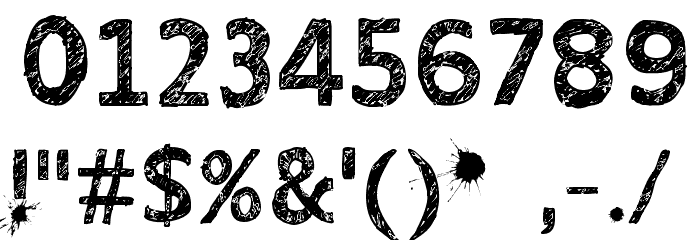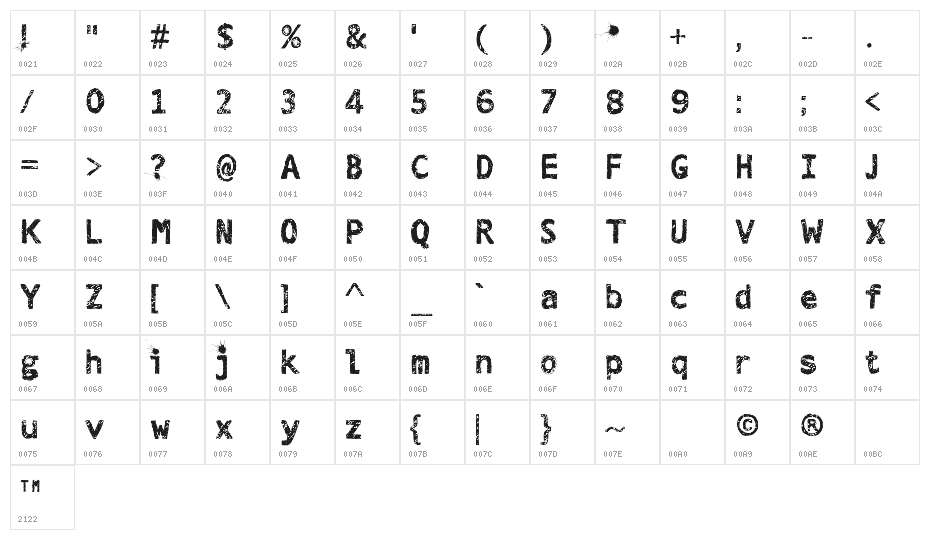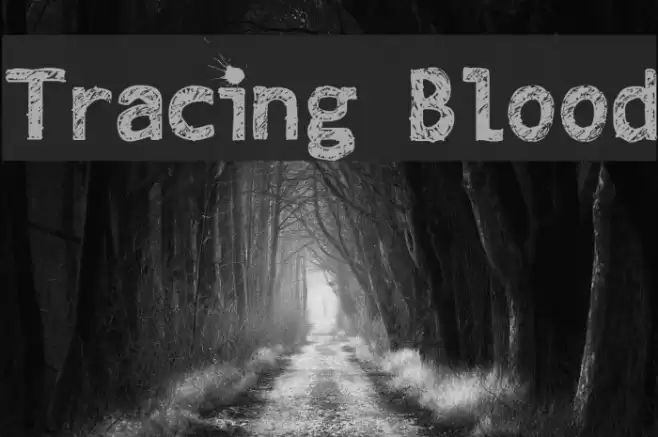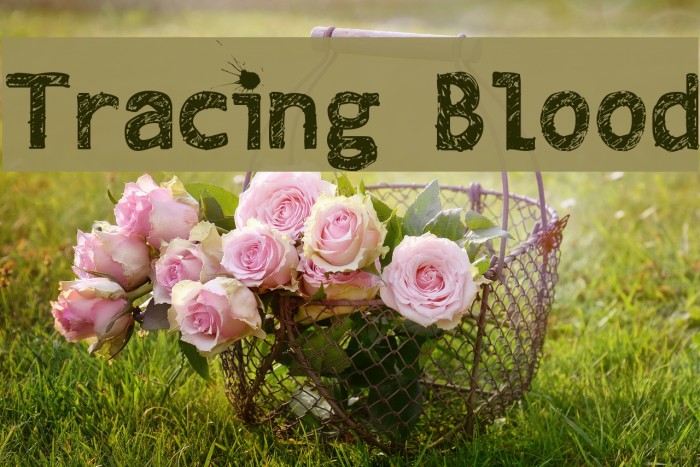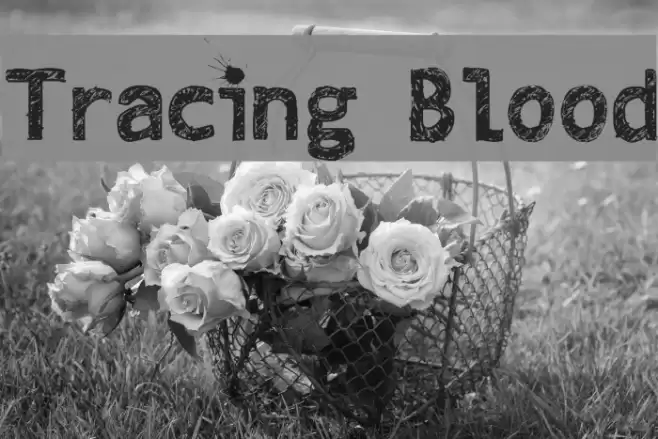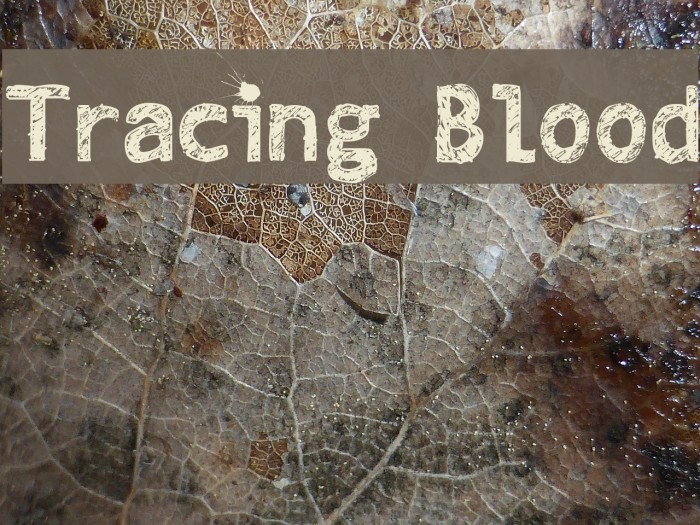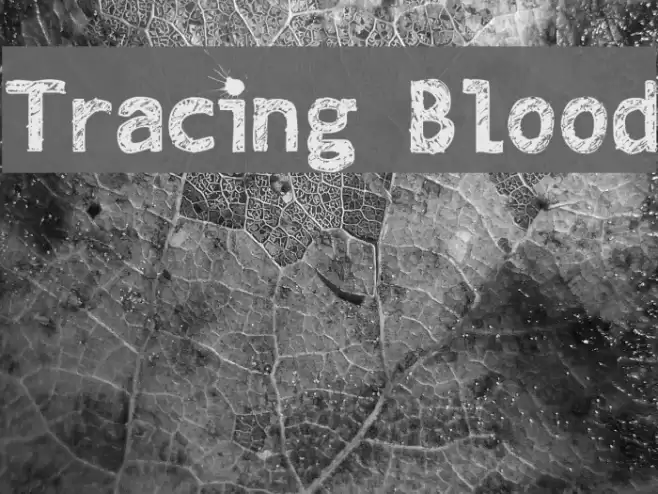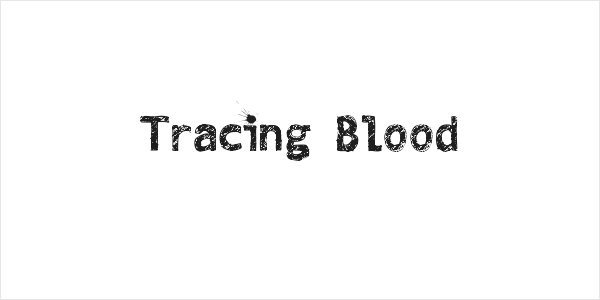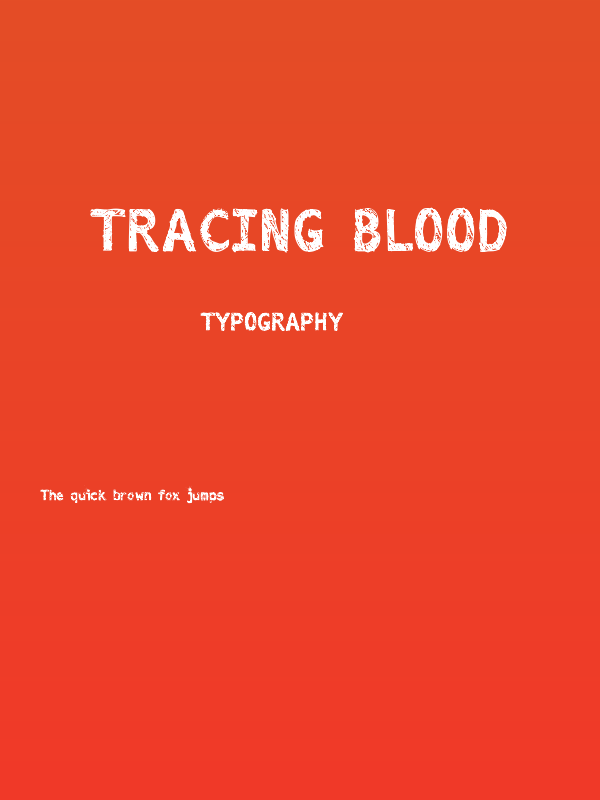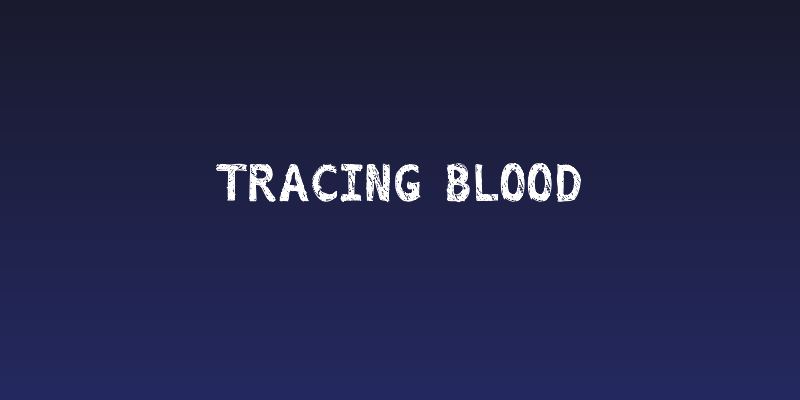
Tracing Blood Font
Tracing Blood Description
This font features a bold and distressed style, reminiscent of splattered ink or paint. The characters are irregular and textured, giving a gritty and edgy appearance. The uppercase and lowercase letters maintain a consistent design, with each character appearing as if it has been stamped or printed with a rough surface. The numbers and special characters follow the same aesthetic, adding to the overall cohesive look. This font is perfect for projects that require a dramatic and eye-catching effect, such as horror-themed designs or rebellious, punk-inspired artwork.
| Proposed Projects | Ideal for horror-themed designs, punk-inspired artwork, posters, and edgy branding. |